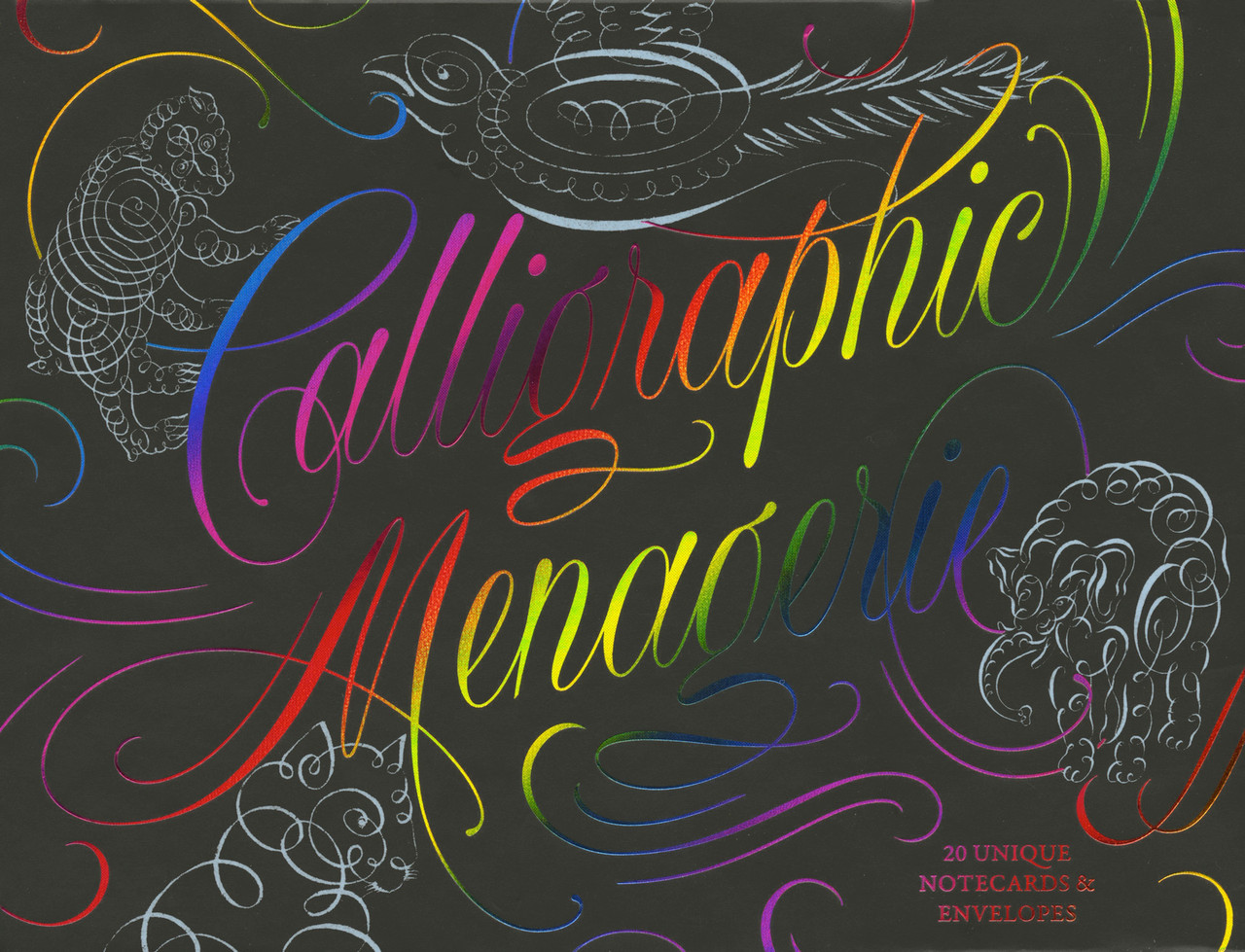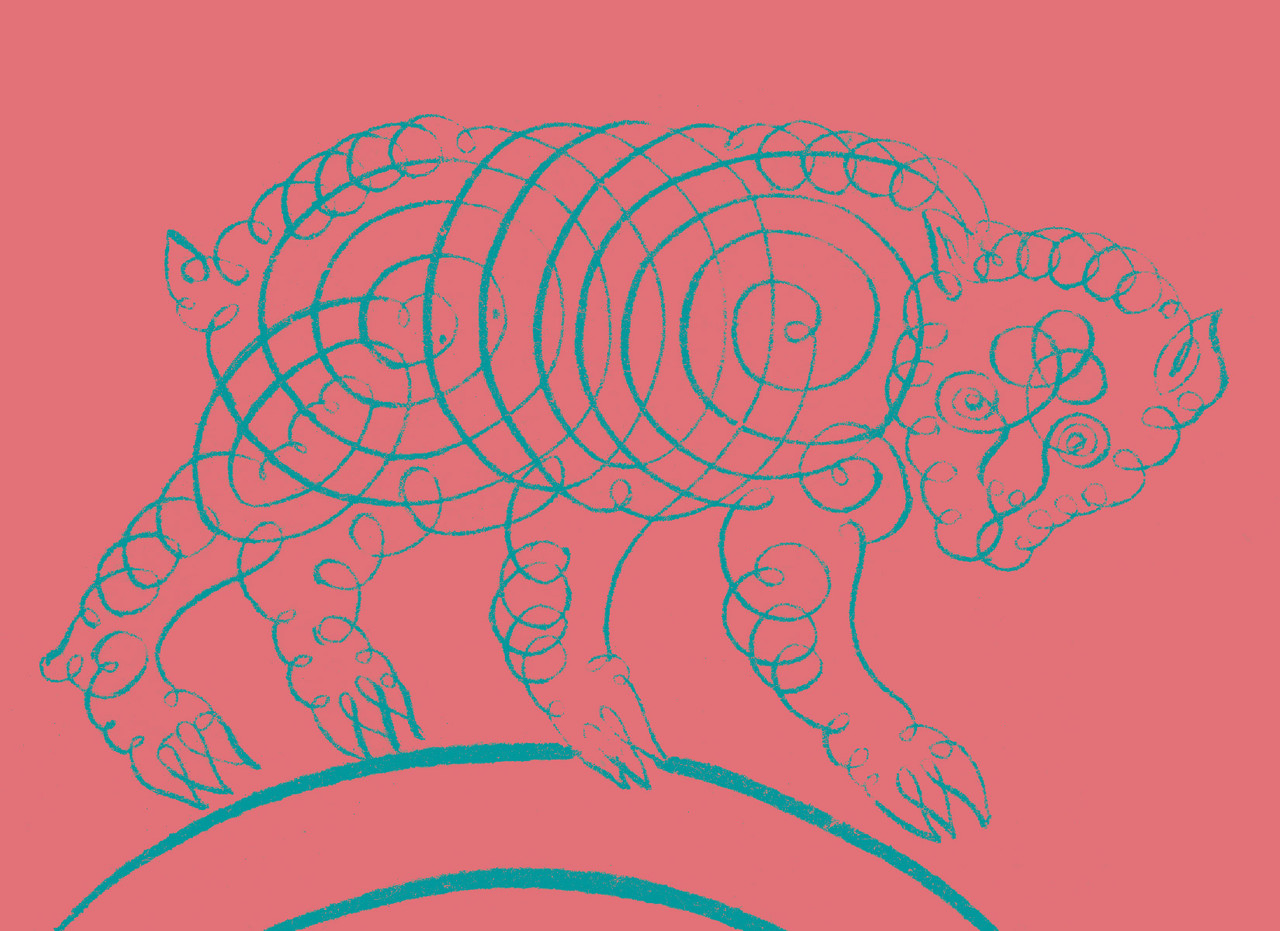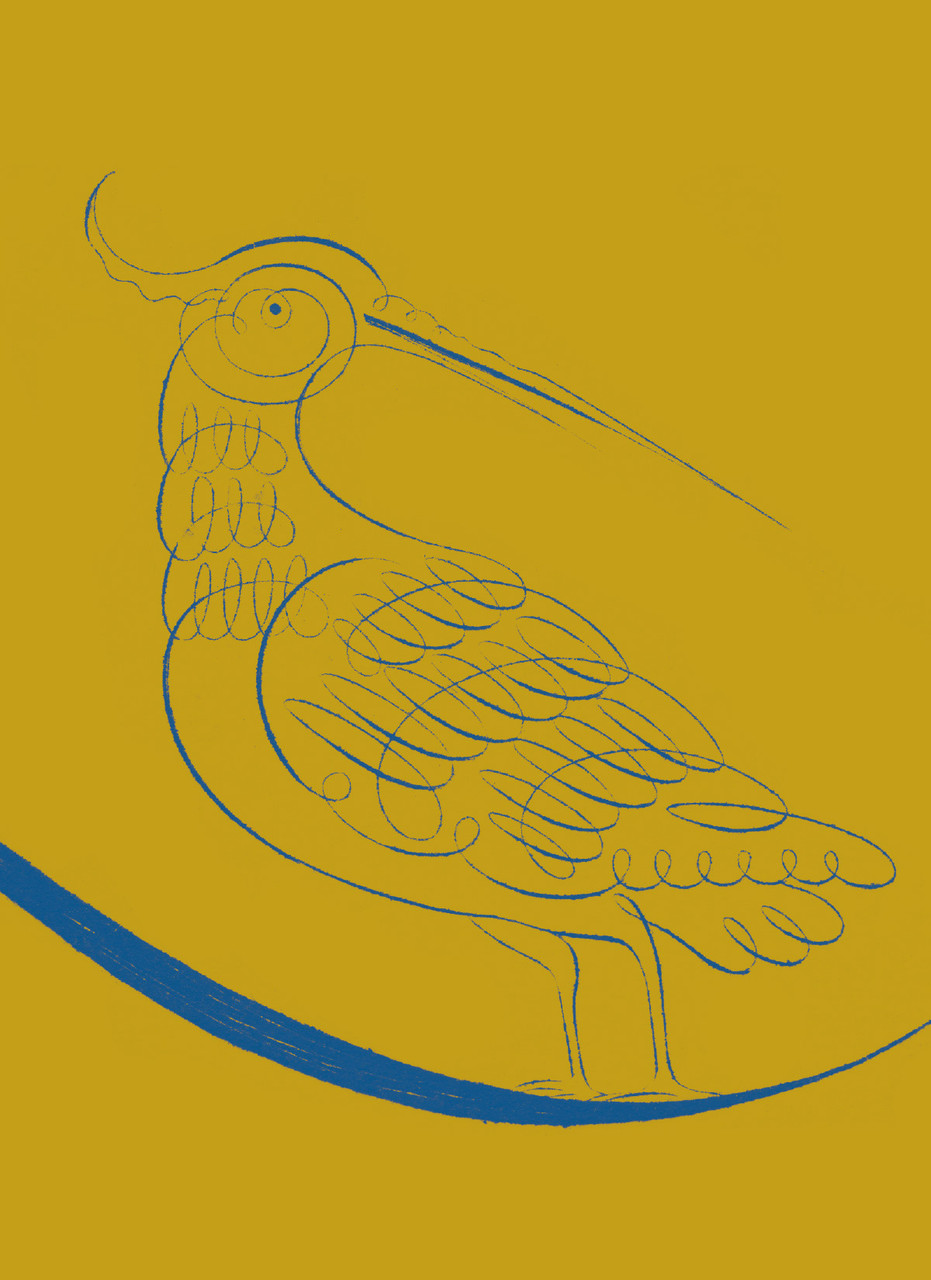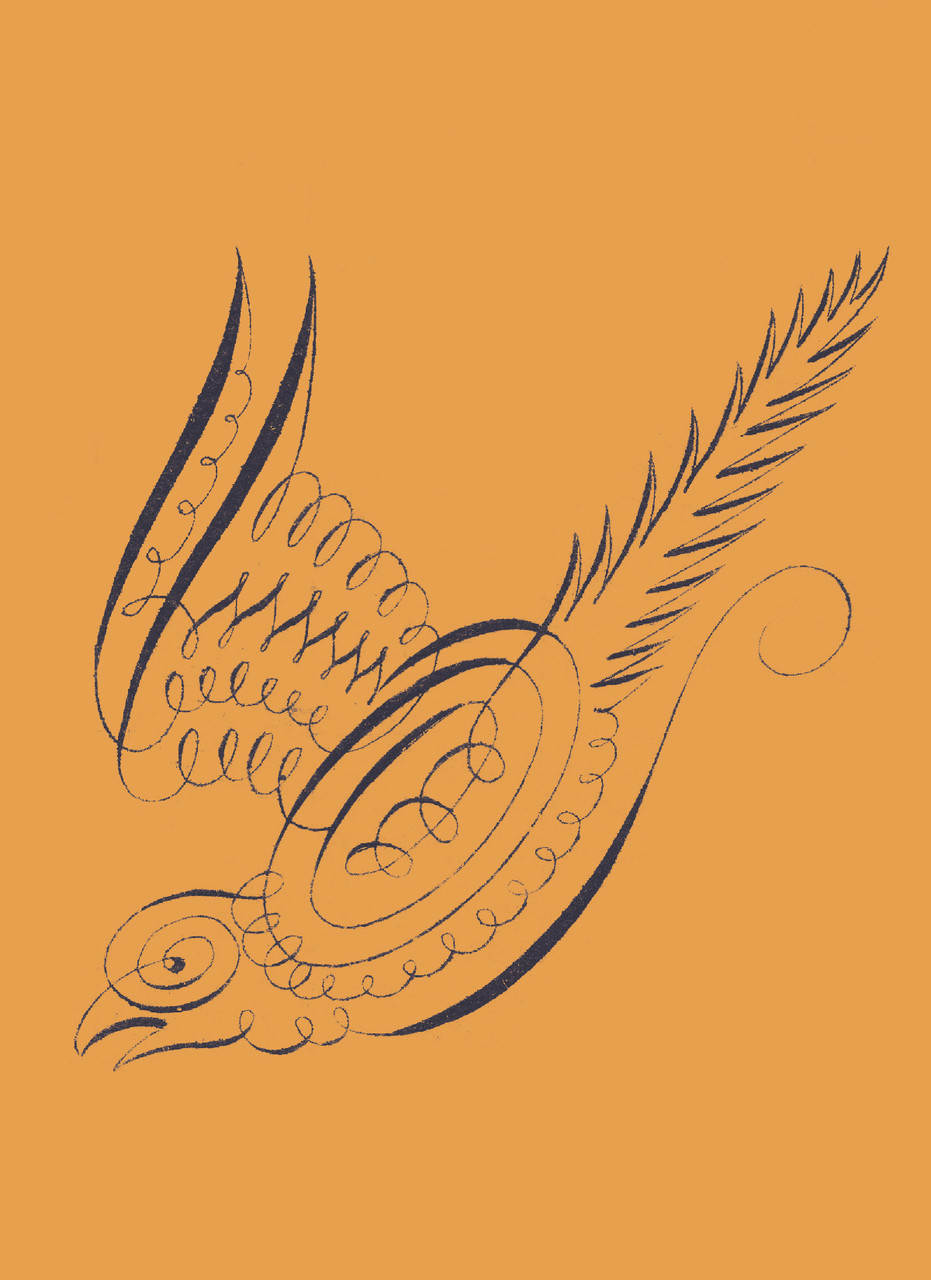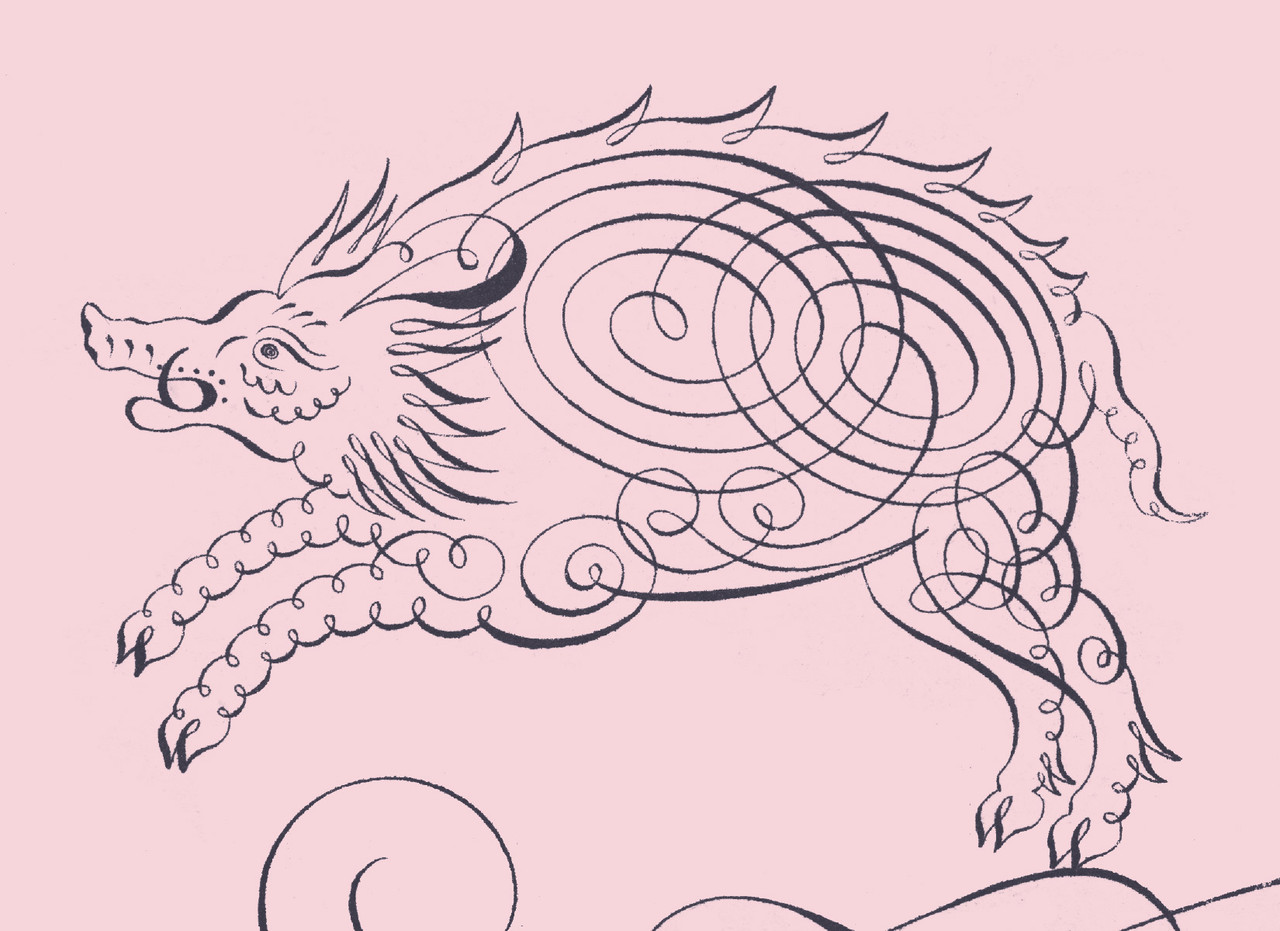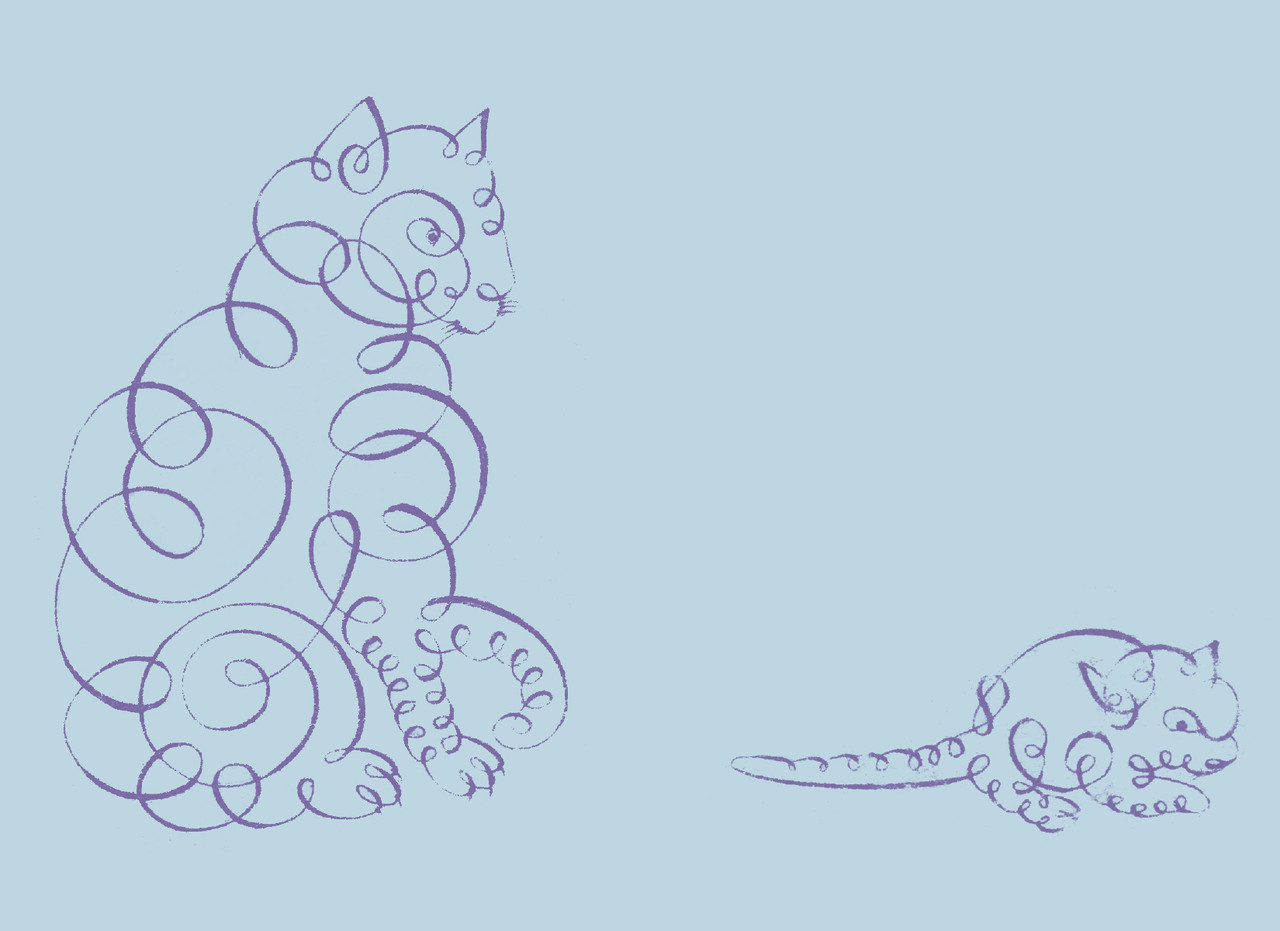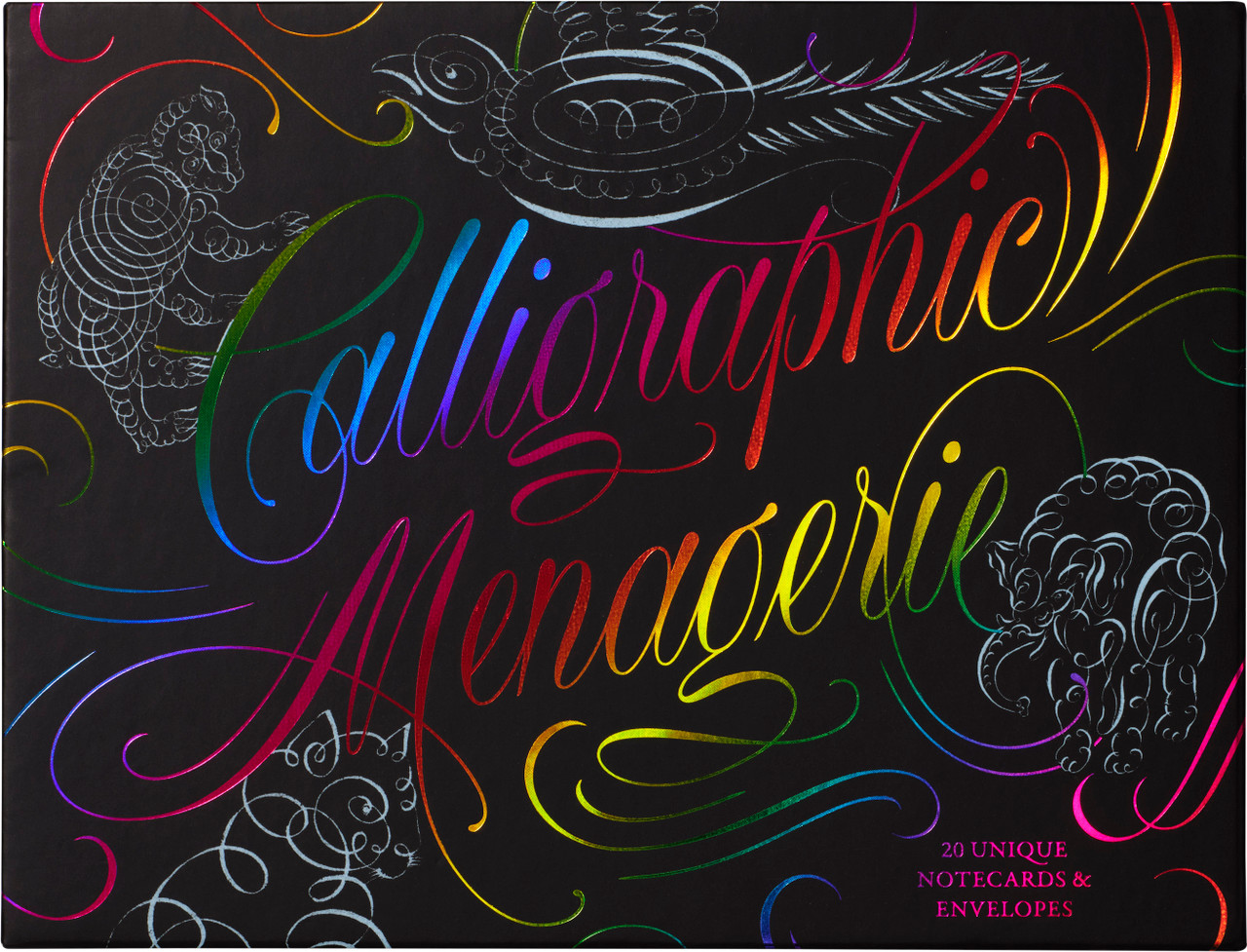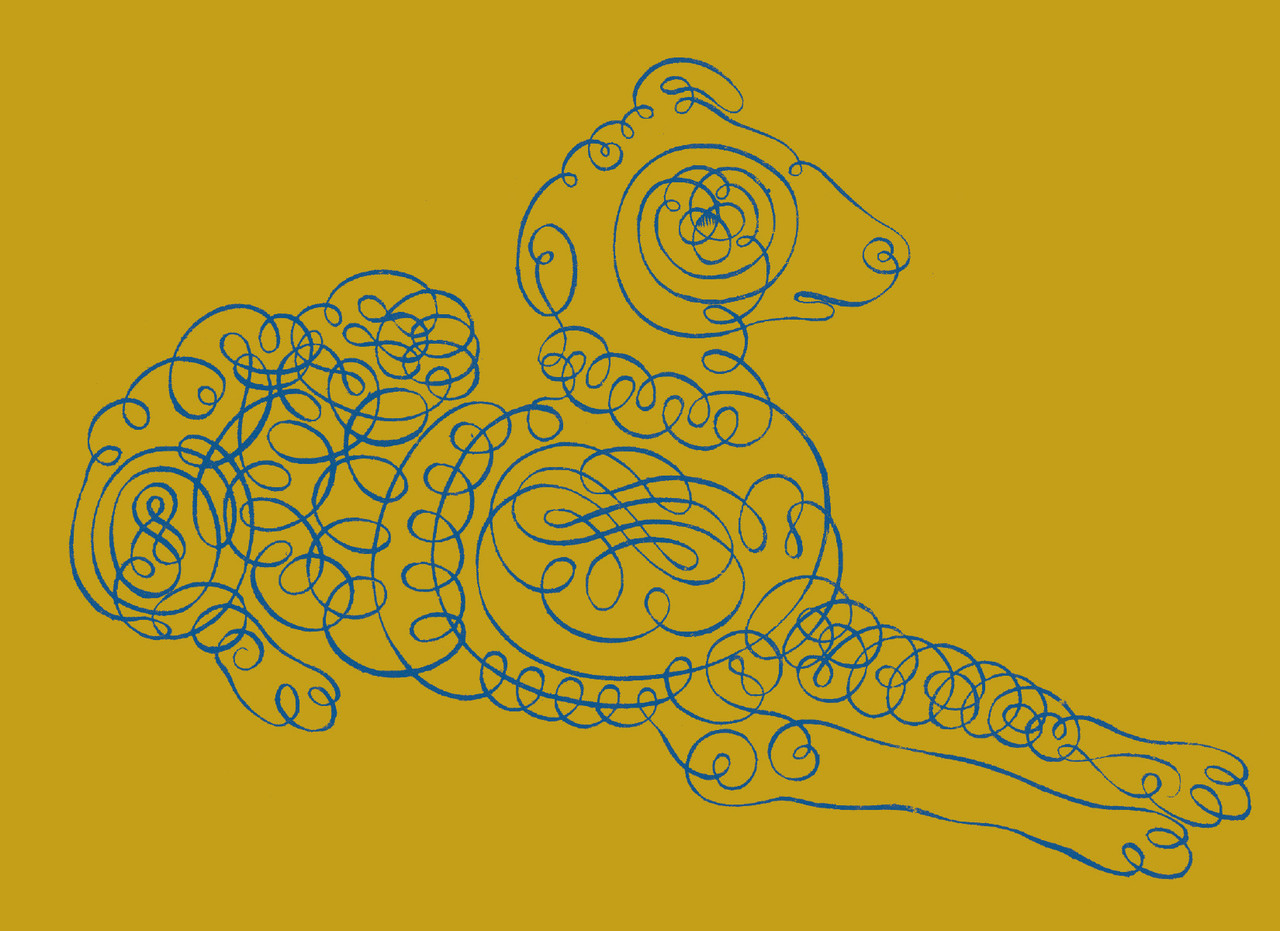
Notecards with charismatic creatures from the quills of old writing masters celebrate the playful art of flourishing
Sourced from Letterform Archive’s collection of historic writing manuals—books in which Europe’s leading scribes showed off their talents—this set of 20 unique notecards with accompanying envelopes delightfully displays hand-drawn animals made with ink and pen. Dogs, cats, bears, elephants, lions, dragonflies, peacocks, swans and more are reproduced in bright hues on an array of colorful backgrounds. These technically masterful and playfully expressive artworks by famed calligraphers such as Jan van de Velde, John Seddon and Joseph Friedrich Leopold make ideal companions for handwritten messages of all kinds. Presented in an elegant foil-stamped box, this set is the perfect gift for all animal-loving pen pals.
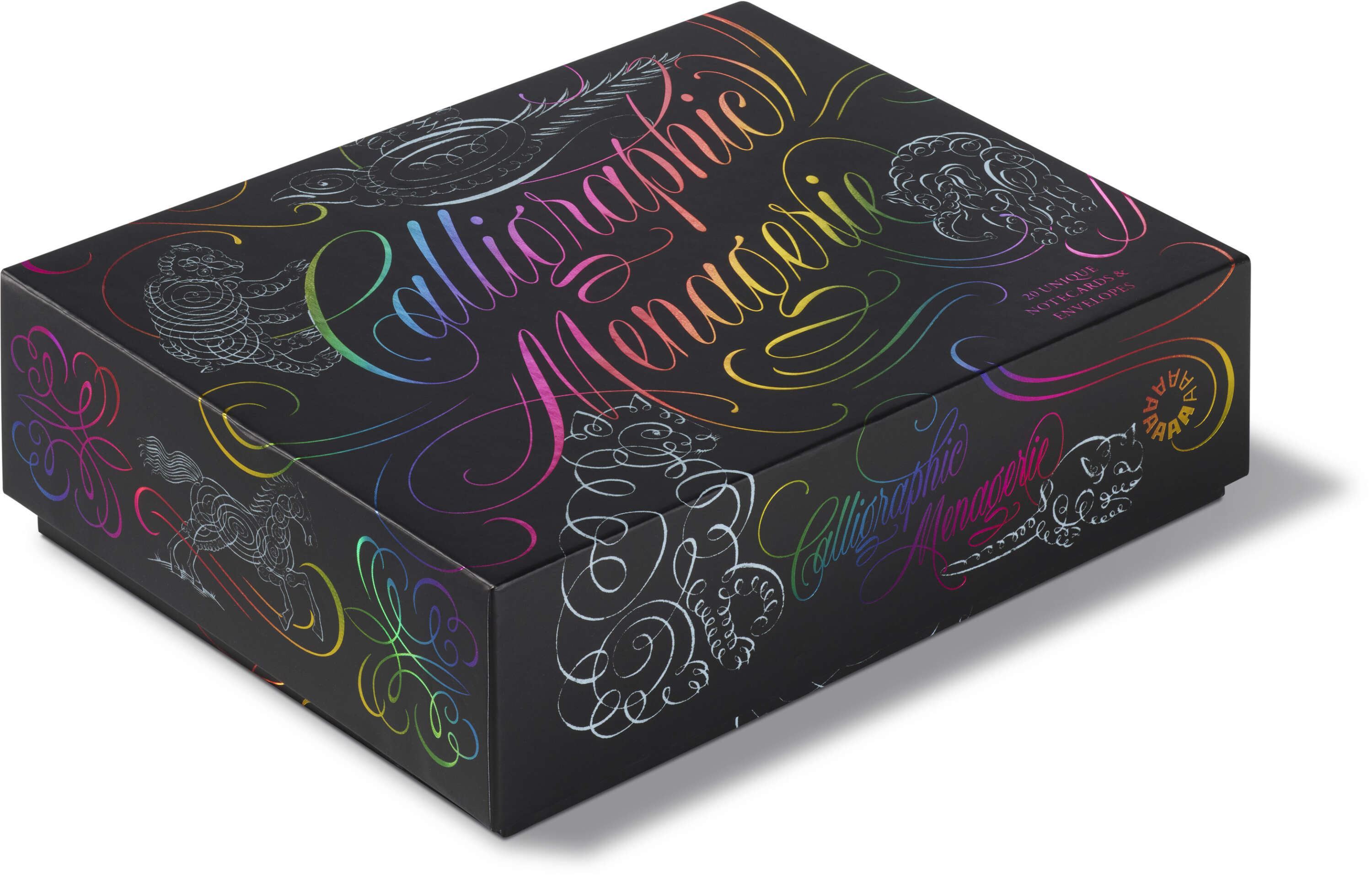
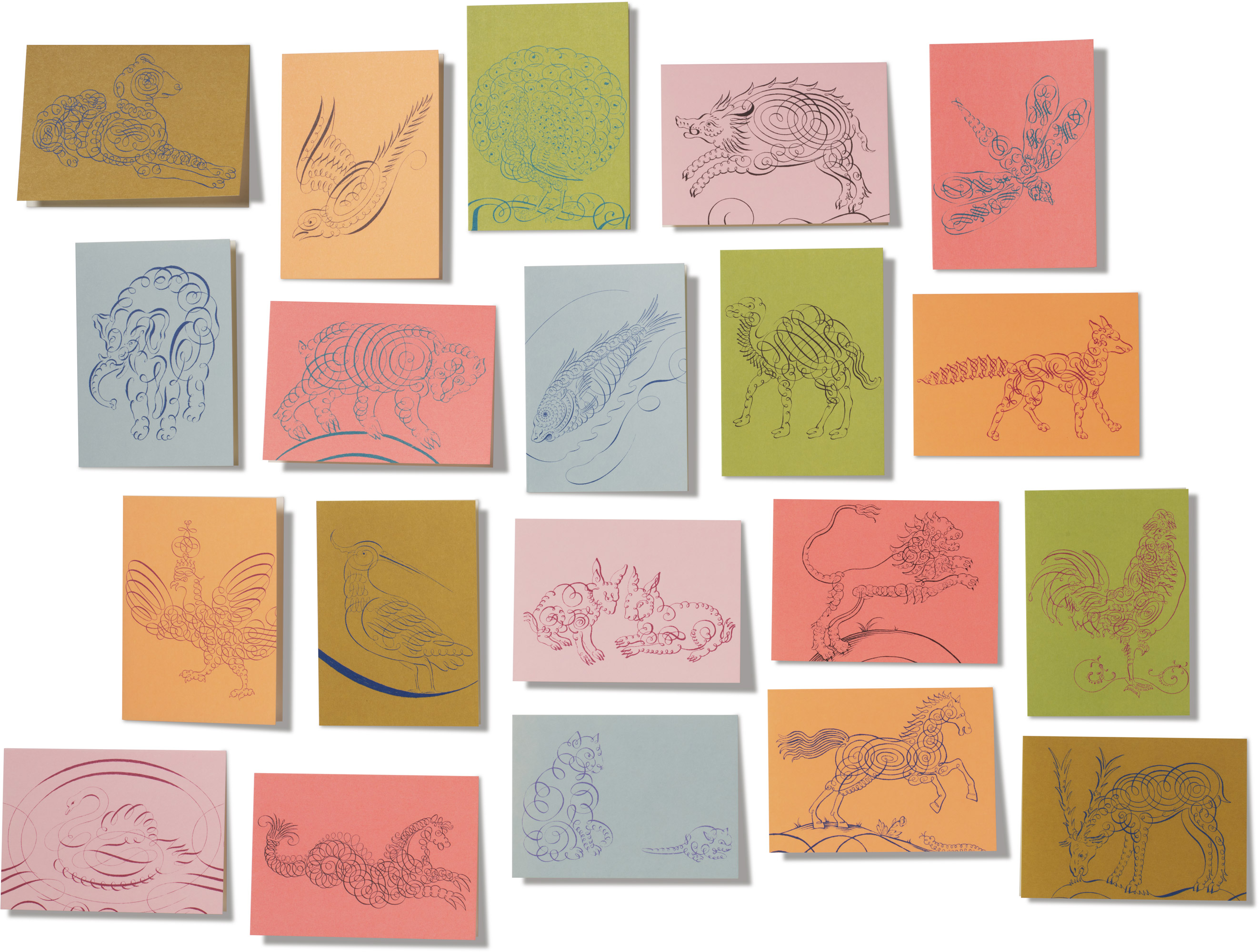
Europe’s scribal masters of the seventeenth and eighteenth centuries advertised their talents and advanced their art by publishing elaborately engraved writing manuals and copybooks. In many, charming calligraphic figures made with decorative pen strokes called flourishes appear alongside written examples of formal scripts. Lines and swirls transform into birds that alight on letterforms, bears and foxes that romp across the page, lions and elephants that frame stately compositions, and fish and insects that meander in the margins.
Often formed with one continuous line, these creative feats were ideally improvised like a conjuring act from the writer’s quill. While some penmen criticized figural flourishing as a decorative indulgence, an epitaph for British writing master John Seddon (1644–1700) shows the admiration won by these lighthearted yet commanding performances:
Princes by birth, and politics, bear sway,
But here lies one of more command than they;
For they by steady councils rule a land,
But this is he, could men, birds, beasts command,
Ev’n by the gentle motion of his hand.
Featuring art from classic writing manuals including...
- Jan van de Velde (calligrapher), Jacob Matham and Simon Wynhoutsz Frisius (engravers), Spieghel der schrijfkonste… (1605)
- Louis Maingueneau (calligrapher) and Claude Auguste Berey (engraver), Modèles d’écriture financière de présent en usage (circa 1680)
- Etienne de Blégny (calligrapher) and Claude Auguste Berey (engraver), Les elemens, ou, Premieres instructions de la jeunesse (1691)
- Johann Muscat (calligrapher) and Christoph Riegel (engraver), Vorschrifft, Teutsch und lateinischer Schrifften (1696)
- Joseph Friedrich Leopold (calligrapher and engraver), Anmuthige Schau Bühne allerhand lateinisch-italianisch-romanisch und französische Alphabeth, Schrifften, Zahlen, und Zugwercke vorstellend… (circa 1696)
- Ambrosius Perlingh (calligrapher) and Wilhem de Broen (engraver), Exemplaar-boek inhoudende verscheyde nodige geschriften… (circa 1700)
- Johann Jacob Losenauer (calligrapher) and Johann Georg Hertel (engraver), Vorschrifft, Teutsch- lateinisch- und frantzösischer Schrifften (1719)
- George Bickham (engraver), Penmanship in Its Utmost Beauty and Extent (1731)
- Louis-Antoine Saintomer the elder (calligrapher) and [Louis?] Lefrançois (engraver), Graphométrie… (circa 1799)